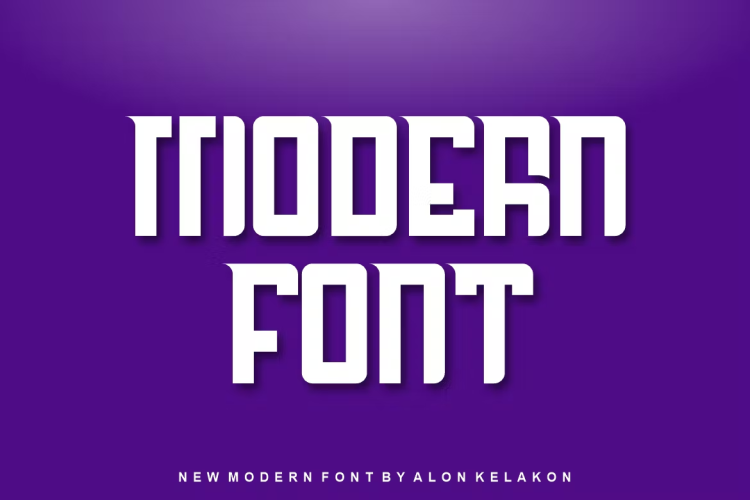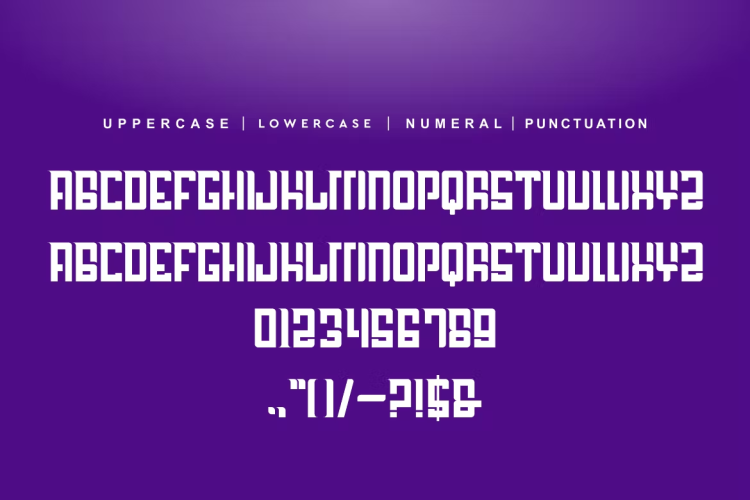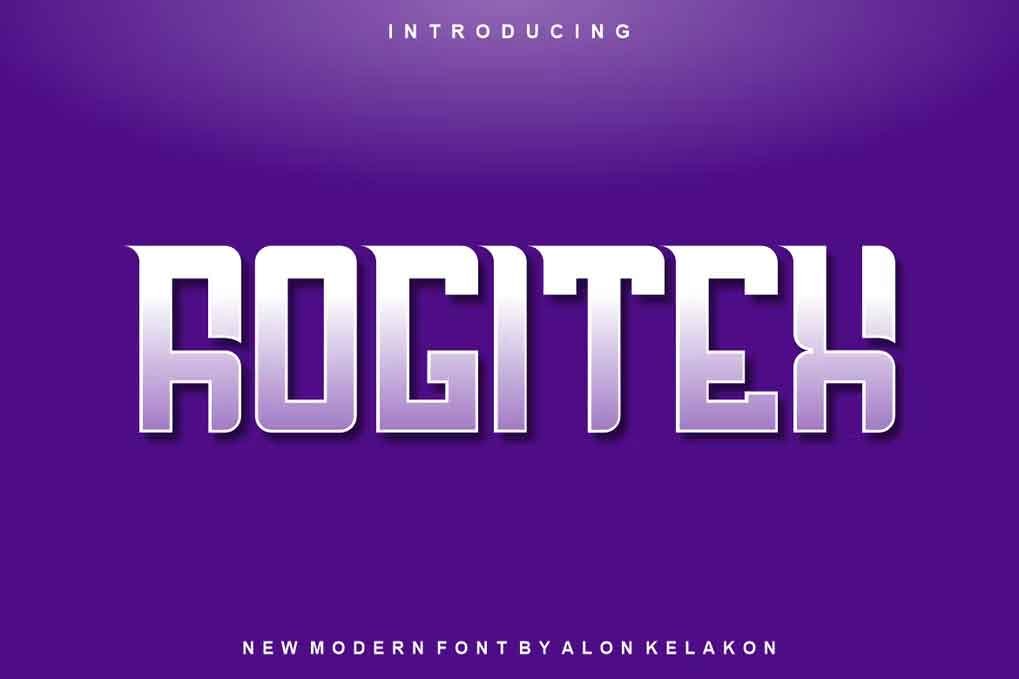
Rogitex Font
Rogitex Font is unique . Ready to use for your design like labeling, clothing, movie sceen, poster, movie title, gigs, album covers, logos, and much more.
Rogitex Font is a Sans Serif Fonts font that brings a professional and versatile look to your projects. Rogitex Font is unique . Ready to use for your design like labeling, clothing, movie sceen, poster, movie title, gigs, album covers, logos, and much more.